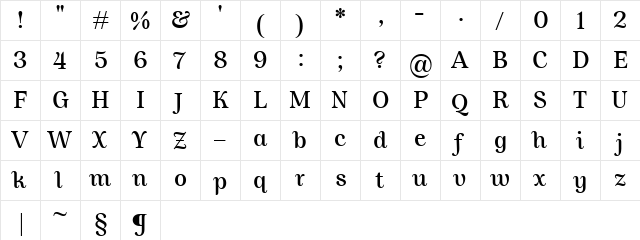
Allust DEMO Regular
| Designer | Yusril Muhtadi |
Design Context for Allust DEMO Typeface
Allust DEMO takes a measured approach to typography — its balanced proportions and neutral character make it a reliable workhorse for both digital and print work.